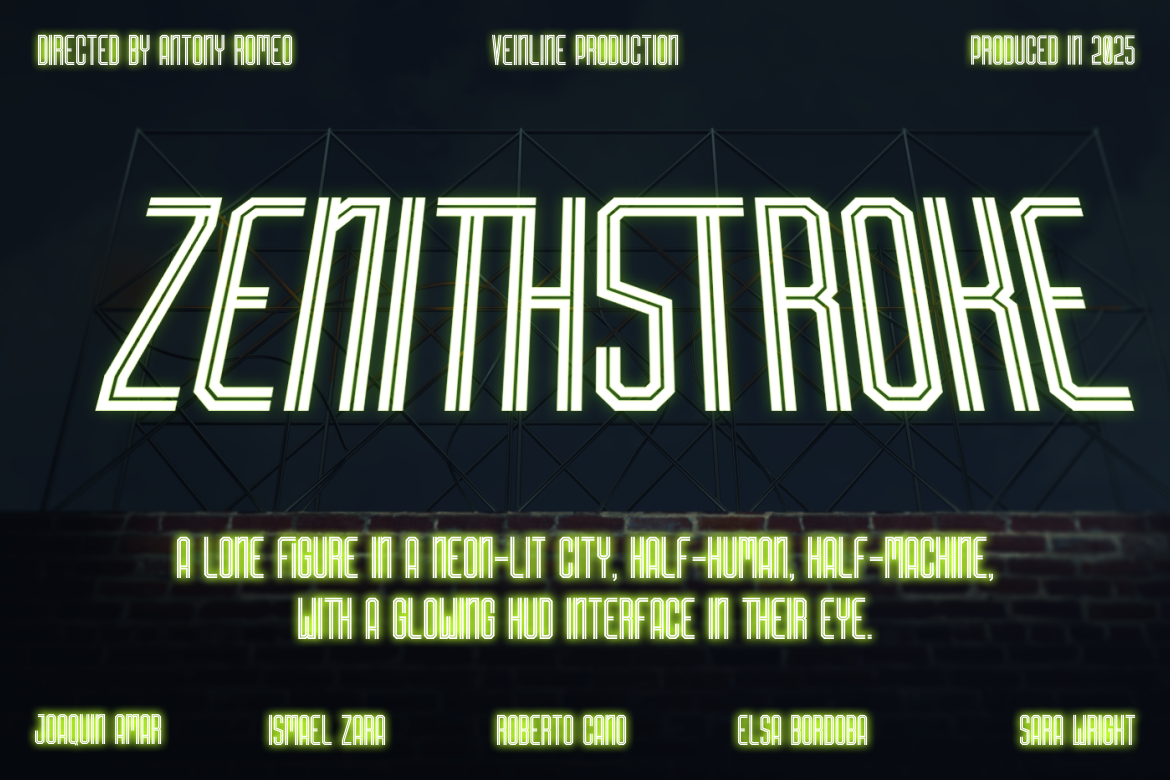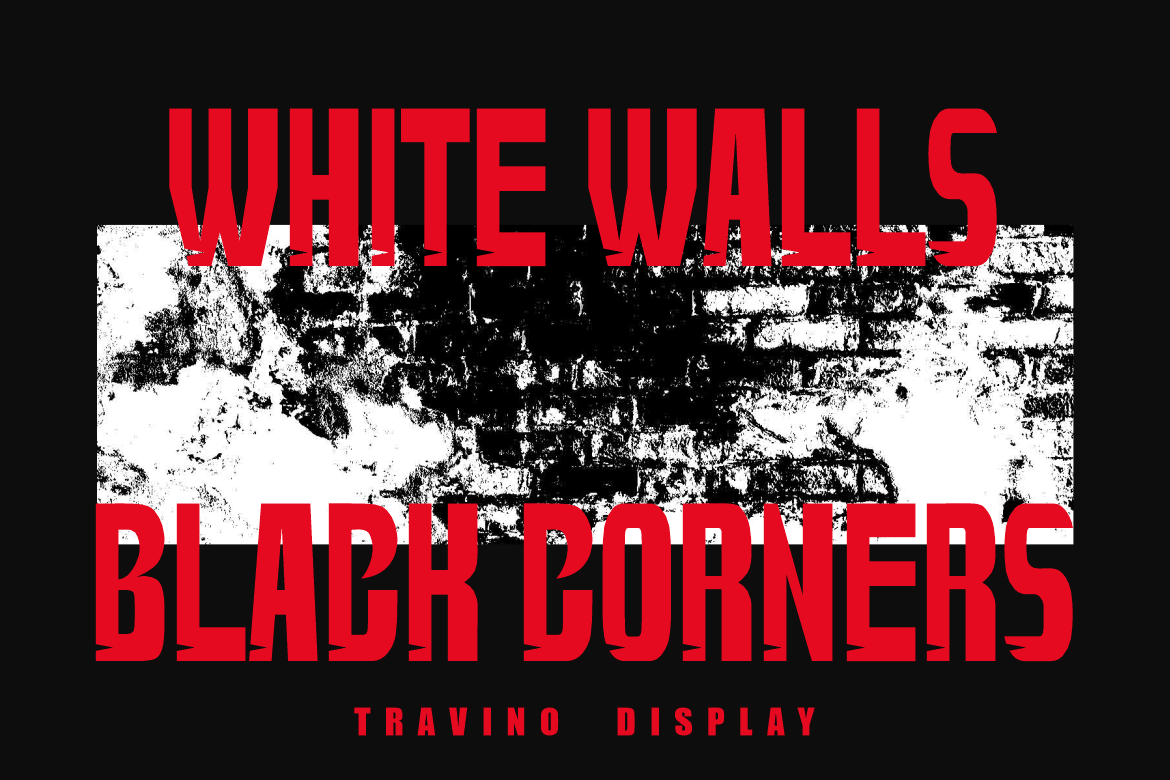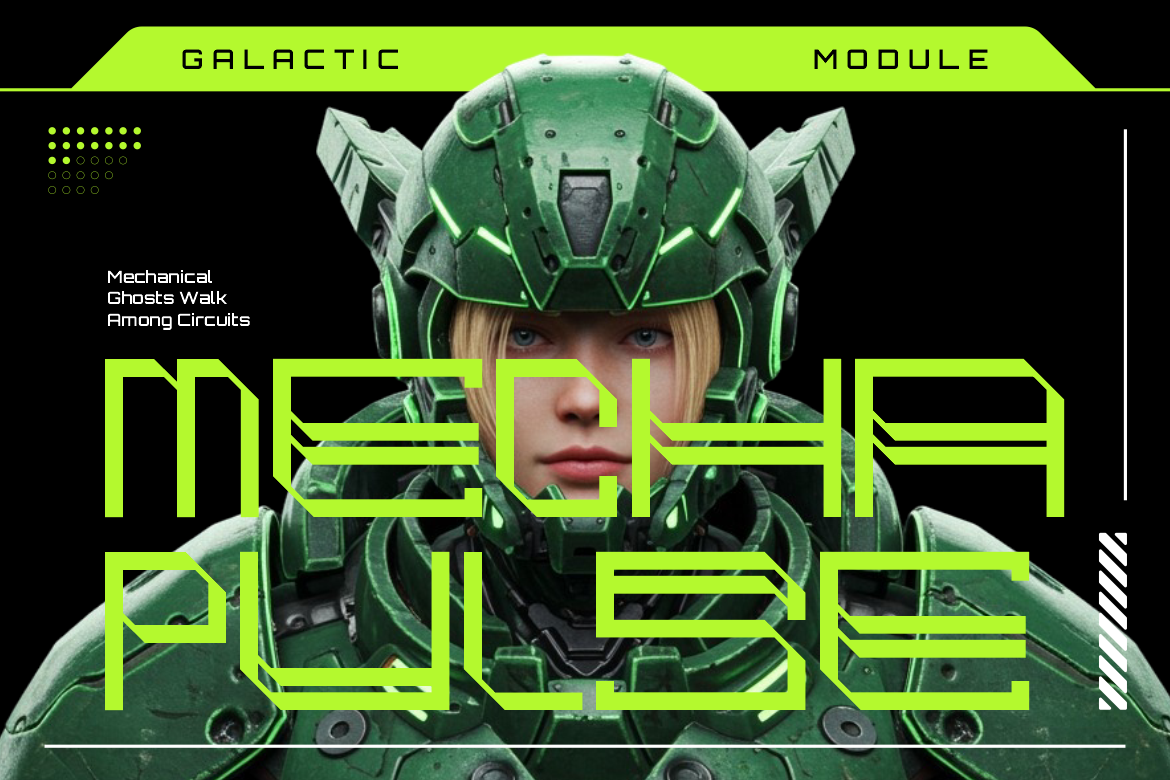
Free Fonts for Logo Design: 15 Picks for Sports & Tech Themes
Why Choosing the Best Free Fonts for Logo Design Matters
A logo embodies brand identity instantly. In sports and technology sectors, the typography must feel futuristic, fast, and flexible. The best free fonts for logo design in these contexts combine bold geometry, clean lines, and scalability ensuring visual impact across jerseys, apps, websites, and printed materials.
Modern Cosmo: Sleek and Futuristic
Modern Cosmo boasts sharp geometric terminals and minimalist contours, ideal for tech brands or athletic gear. It scales cleanly and reads well in both monochrome and color. Yet, its minimalism may feel impersonal if warmth or character is desired.
Movetrax Booster: Conveying Speed
Movetrax Booster’s italic slants and condensed form give it kinetic energy, perfect for racing teams, gyms, or action sports branding. Its strong slant communicates urgency. The drawback: tight spacing may reduce legibility at small sizes.
Polygon Block: Sturdy and Geometric
With chunky polygon forms, Polygon Block conveys strength and solidity, well suited to tech startups or e‑sports logos. However, its heavy outline may lack sophistication for lighter branding projects.
Rugby Squad: Athletic Team Spirit
Rugby Squad features angular edges and uniform weight, lending it a sporty, collegiate look. It works great for team badges or sport apparel labels. Yet, its varsity aesthetic may feel outdated if used outside athletic contexts.
Zeta Drive: Tech Edge & Futuristic Flair
Zeta Drive uses segmented line elements and high-tech shapes, making it ideal for gaming, robotics, or crypto branding. Its rigid structure, however, may lack warmth for lifestyle or fashion brands.
Zenith Stroke: Digital Precision
Zenith Stroke’s broken-line design evokes HUDs and digital interfaces. It’s perfect for UI-heavy brands or data-driven industries. A potential downside is its sterility and less warmth in soft or personal use cases.
Sportive Allstar: Bold Sport Branding
Sportive Allstar combines thick letterforms and slight italics, a favorite for sportswear logos or team merch. Despite its visibility, it may feel too mainstream or generic for edgy digital brands.
Super Touchdown: Grit and Power
With chunked edges and strong presence, Super Touchdown captures competition energy—excellent for football or high-impact sports logos. Small-size rendering may lose detail due to thickness.
Travino Display: Statement & Space
Travino Display’s spaced letterforms and lightweight form help logos breathe visually. It reads well in tech or creative brands, but its thin strokes may struggle in print or small format usage.
Magna Bold: Monumental and Clean
Heavyweight and confident, Magna Bold ensures standout visibility, great for app icons, patches, or brand names. But its weight can overpower delicate design elements.
Pixel Quest: Retro Digital Charm
Pixel Quest channels pixel art and vintage video game design. It’s best for gaming, tech nostalgia, or retro branding. At large sizes, it may appear too dated for modern minimalist logos.
Tegno: Minimal Tech Symbolism
Tegno features clean, modern shapes resembling circuitry, suitable for tech startups or UX brands. Its rigidity may not fit human-centered industries with softer aesthetics.
Synth Pixel: Pixel-Perfect Retro Strike
Synth Pixel recalls vaporwave and synthwave tech fonts, ideal for retro-futuristic logos. While expressive, it may limit use to niche subcultures or vintage-inspired brands.
Galactic Module: Space-Tech Identity
Galactic Module incorporates geometric modules and sci-fi facets, perfect for space-tech brands or futuristic visuals. However, its novelty style may feel too stylized in everyday applications.